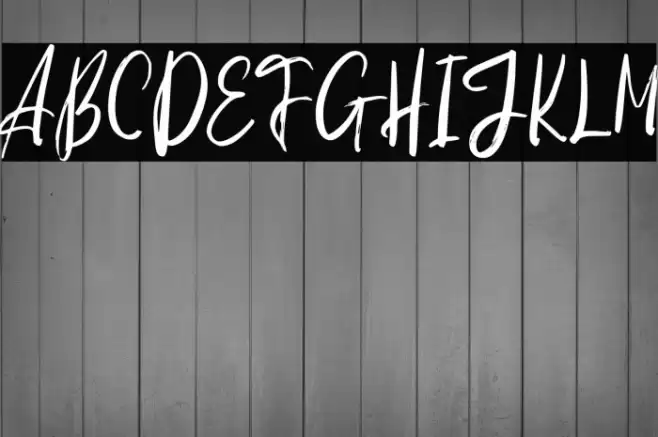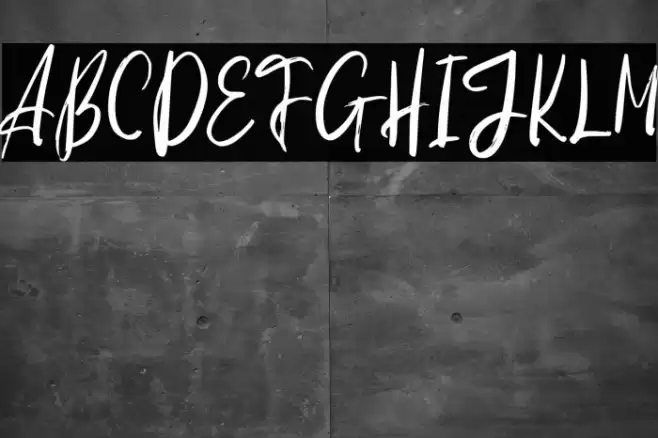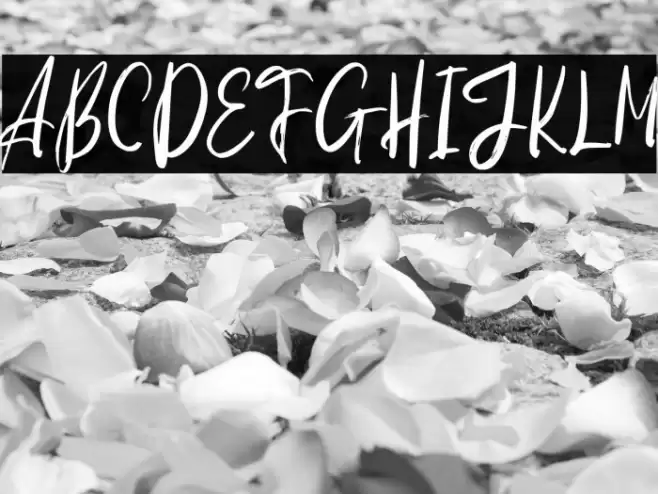
KoduteFREE Font
KoduteFREE Description
This font exudes a dynamic and expressive style, characterized by its fluid, handwritten appearance. The uppercase letters are bold and slightly slanted, giving a sense of movement and energy. The lowercase letters maintain a consistent flow, with some characters featuring unique loops and flourishes that add to the overall artistic feel. The numbers and special characters are crafted with the same attention to detail, ensuring a cohesive look across all elements. This font's design is both modern and playful, making it suitable for creative projects that require a personal touch.
A dynamic, handwritten font with bold, expressive strokes from Uncategorized fonts.
- Font: KoduteFREE
- Proposed Projects: Ideal for branding, invitations, greeting cards, and artistic projects.
- Use Case: Logos, Headlines, Creative projects